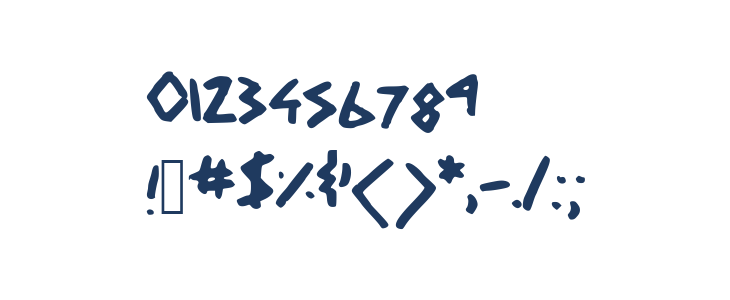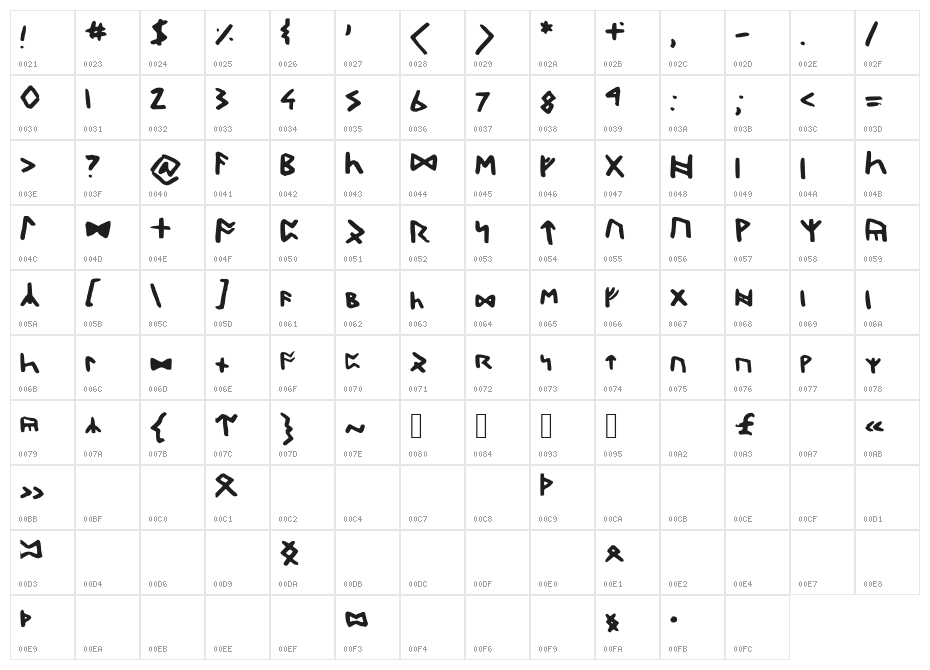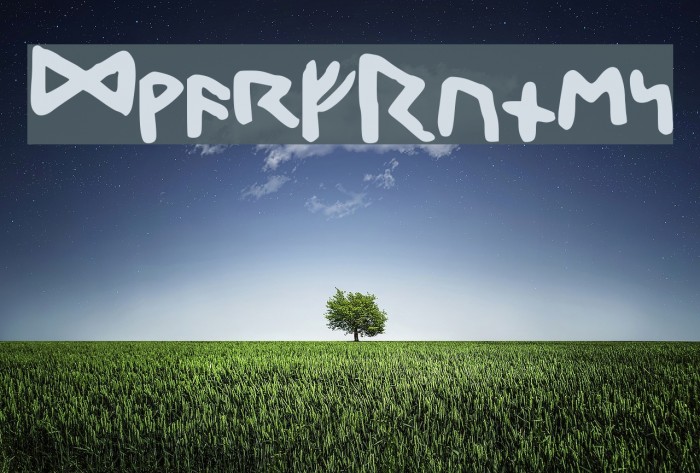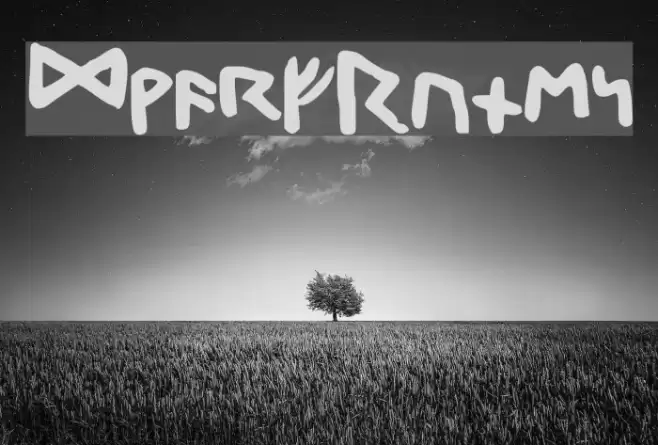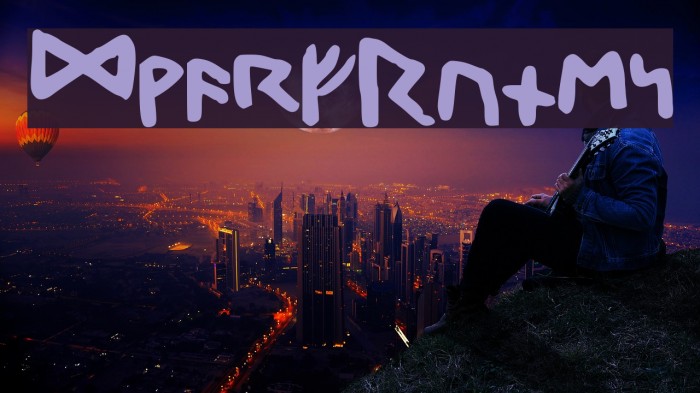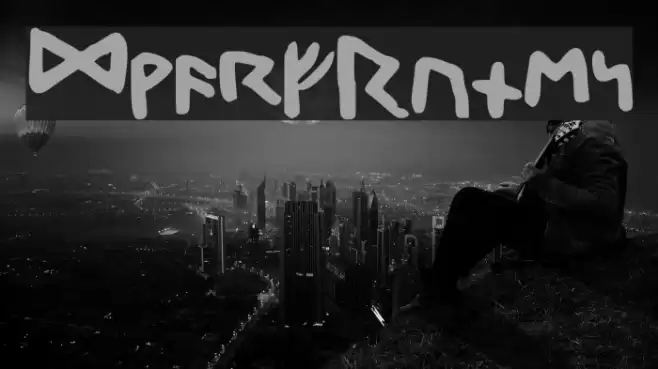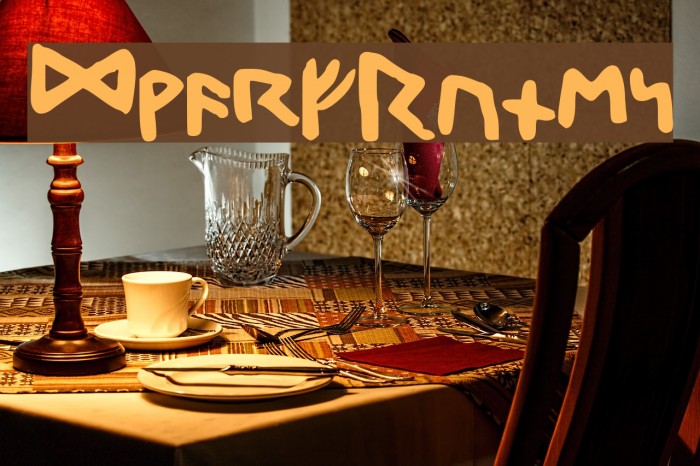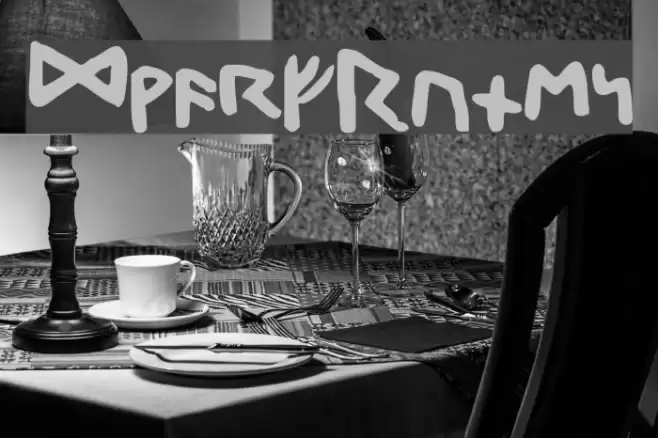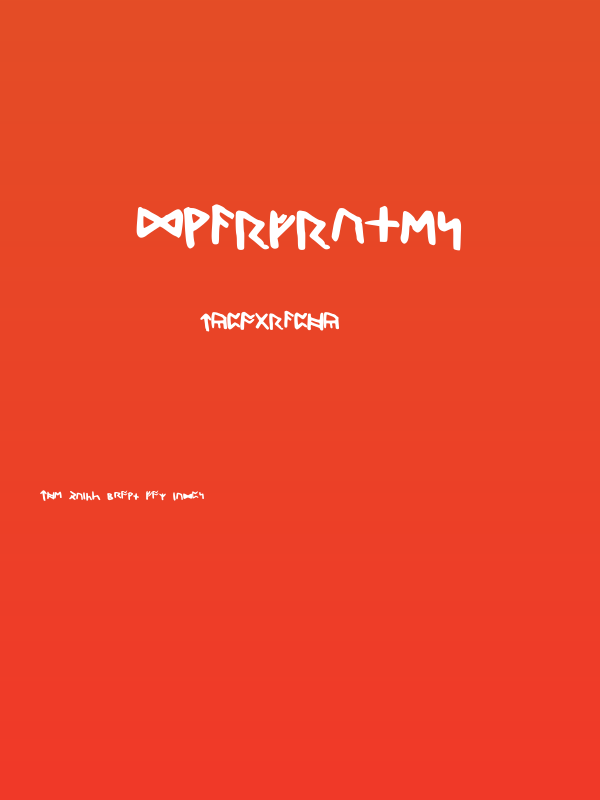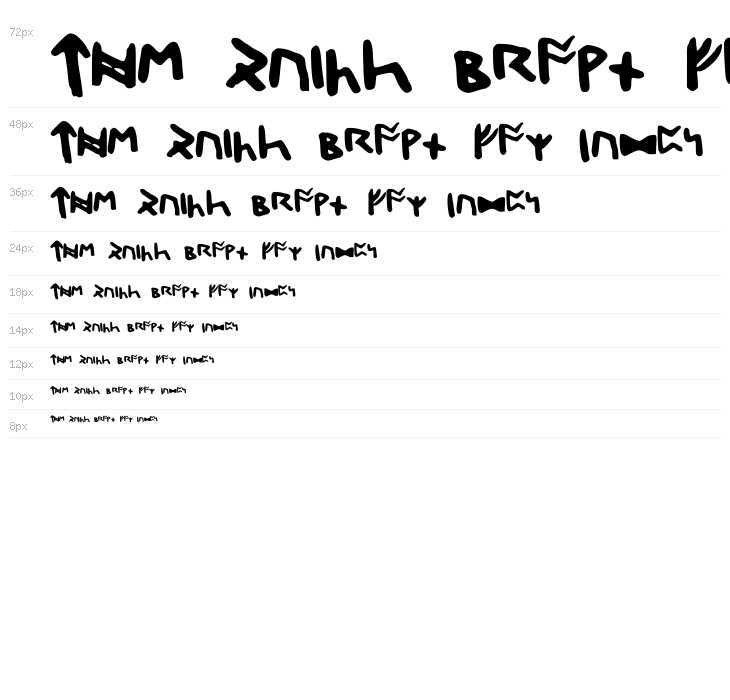
DwarfRunes Font
DwarfRunes Description
This font features a unique, ancient rune-like design that evokes a sense of mystery and fantasy. The characters are bold and angular, with a hand-carved appearance reminiscent of ancient inscriptions. Each letter is distinct, with sharp edges and a slightly irregular form, adding to the authenticity of its ancient aesthetic. The numbers and special characters follow the same style, maintaining consistency across the set. This font is perfect for projects that require a touch of fantasy or historical intrigue, such as game design, fantasy novels, or themed events.
| Overall Style | Fantasy, Ancient, Mystical |
| Use Case | Headlines, Logos, Decorative text |
| Proposed Projects | Ideal for fantasy games, historical fiction covers, themed events, and decorative posters. |